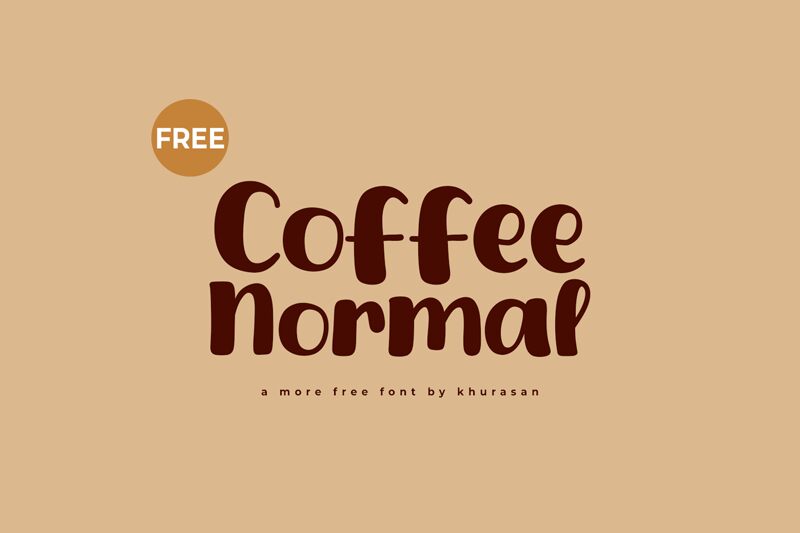
Coffee Normal
Coffee Normal, a smooth and bold brush font designed by Khurasan, exudes a warm, artisanal charm. Its organic, hand-crafted aesthetic evokes the inviting ambiance of a cozy coffee shop, seamlessly blending modern sophistication and rustic appeal. The font's harmonious strokes and carefully curated proportions create a visually striking and cohesive typographic experience.
This versatile font lends itself beautifully to a wide range of design applications, from branding and packaging to editorial layouts and product labeling. Its bold presence commands attention, making it an ideal choice for headlines, logos, and eye-catching displays. Additionally, the font's smooth, brushed texture adds a touch of craftsmanship and authenticity to any design, perfectly complementing the aesthetic of artisanal products, specialty stores, or culinary ventures.